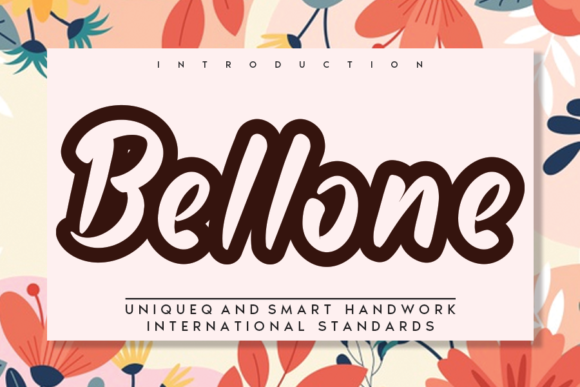
Bellone Display Font for Campaign Design
There I was, finalizing the last set of Instagram posts for a seasonal sale campaign. The client wanted something warm, approachable, and eye-catching without being over the top. As a marketing designer who's worked on countless brand launches and digital ad sets, I've learned that the right display font can make or break a visual’s impact — especially in fast-scrolling feeds where you have seconds to grab attention. That’s when I pulled out Bellone, a handcrafted display typeface that has quietly become my go-to for many creative projects.
Bellone in Product Launch Graphics
Bellone is one of those rare fonts that feels both intentional and effortless. When designing product teasers or launch banners, it adds a touch of personality while maintaining clarity. Its casual charm gives off a down-to-earth vibe, perfect for lifestyle brands or campaigns aiming to feel more human. In one recent project for an online course launch, using Bellone as the headline font helped us stand out among competitors who were all leaning into sterile sans serifs. It didn’t just look good; it felt like a conversation starter.
Bellone for YouTube Thumbnails and Reels Covers
YouTube thumbnails are tough. You need to convey the entire message in a small image that people might see at a glance while scrolling on their phones. Bellone proved its worth here too. Its bold strokes and balanced spacing made it readable even at 1080x720 pixels. For a webinar series we promoted, we used Bellone in the title area of each thumbnail and saw consistent improvements in click-through rates. Not because it screamed at the viewer, but because it invited them in with a friendly, confident tone.
On Instagram Reels covers, we paired Bellone with a clean sans serif for supporting text. The contrast worked well, giving the visual a modern edge while still feeling approachable. This kind of font pairing is crucial in editorial design or any content that needs hierarchy without confusion.
Bellone in Digital Ads and Website Banners
I’ve tested Bellone across several digital ad formats, from Facebook banners to Google Display Network ads. It shines particularly in short headlines and callouts. Because it’s a display font, it’s not ideal for long paragraphs or dense copy, but for punchy messages — “Get 30% Off Today Only” or “Join Our Free Masterclass” — it delivers the right emotional weight. We used it for a website banner promoting an online shop campaign, and it helped reinforce the brand’s playful yet professional identity.
Bellone and Readability in Mobile Previews
Let’s be real: most people will view your visuals on mobile. That means readability is non-negotiable. Bellone holds up surprisingly well in small previews and image overlays due to its open letterforms and clear structure. However, I recommend avoiding tiny sizes unless you’re sure of the background color and context. In one test, we found that using Bellone at less than 24px on dark backgrounds caused some letters to blend together slightly. A quick tweak to stroke contrast and spacing fixed it, but it’s something to keep in mind when building social media graphics for platforms like Pinterest or Instagram Stories.
Bellone for Branded Templates and Email Promotions
When setting up branded templates — whether for email promotions, landing pages, or promo graphics — consistency is key. Bellone allows you to create a strong visual signature without being too loud. In an email campaign for a wellness brand, we used Bellone in the subject line preview and header section. It added a sense of authenticity that matched the brand voice perfectly. Just remember to pair it with a secondary font (like a clean sans serif) for body copy or navigation elements to maintain legibility and balance.
What Bellone Is Not Good For
While Bellone is incredibly versatile, it’s not a one-size-fits-all solution. It doesn't work well in situations requiring large blocks of text or formal corporate communication. If you're working on a long-form blog post, legal disclaimer, or anything needing dense information, stick with a more neutral typeface. Similarly, avoid using it for anything that demands high formality — it’s more of a creative font than a boardroom staple. Think of it as the charismatic friend who’s great at parties but not the best listener during meetings.
Practical Tips for Using Bellone in Your Campaigns
- Use it sparingly: Let Bellone shine in headlines, logos, or decorative titles rather than throughout the entire layout.
- Test mobile views: Always zoom out to ensure it remains legible in smaller sizes and scroll-heavy environments.
- Check multilingual support: If your campaign targets international audiences, confirm the font supports the necessary languages.
- Pair it wisely: Combine with a minimalist sans serif or a soft serif for better hierarchy and contrast in web design or print materials.
In summary, Bellone is a premium display font that blends creativity with practicality. Whether you're crafting a YouTube thumbnail, designing a logo-style text for a new product, or looking for a unique typeface to elevate your next branding project, it’s a solid choice. Just remember to use it where it can perform best — in headlines, callouts, and short statements — and you’ll find yourself reaching for it again and again in your design toolkit.